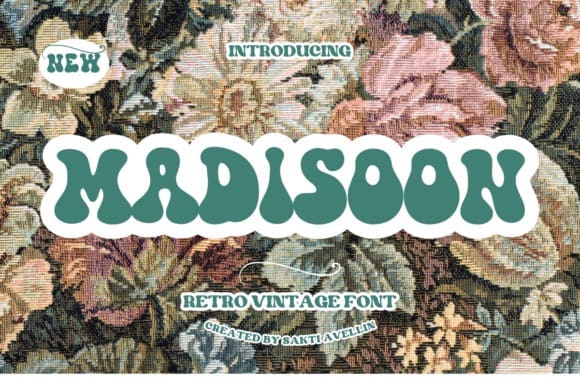
Madisoon Display Font
Madisoon Display Font is a fun and retro font, it’s perfect for designs that need a playful, cheery accent. Madisoon is suitable for book covers, posters, packaging, merchandise, logotypes, and many more!